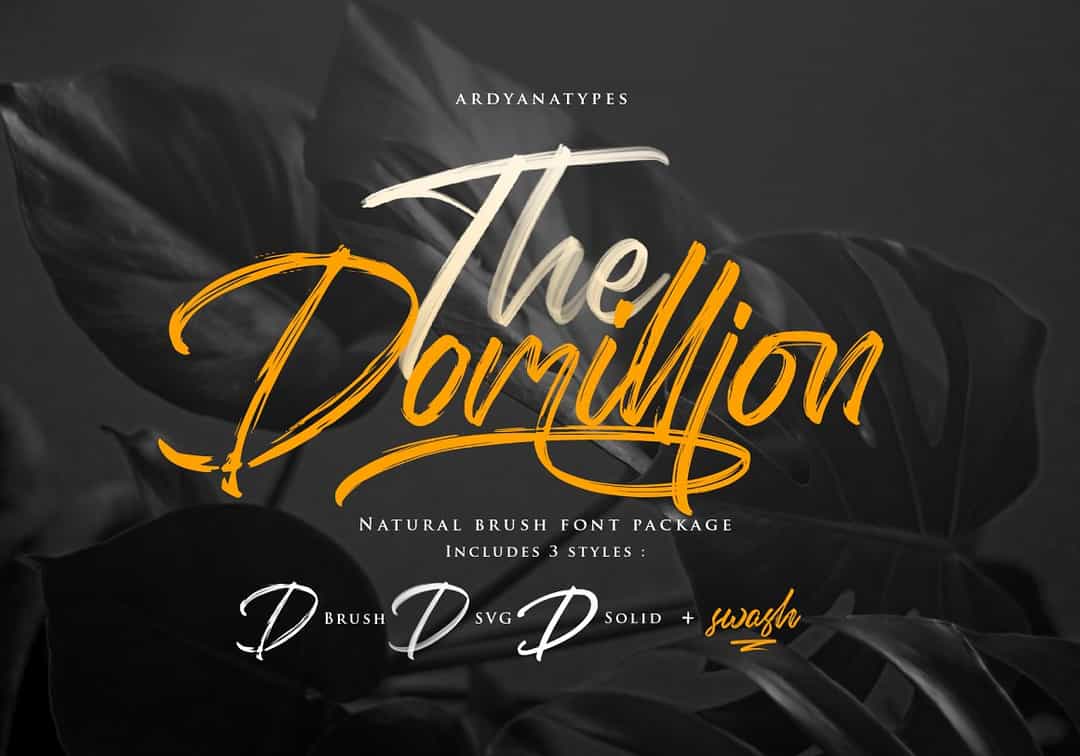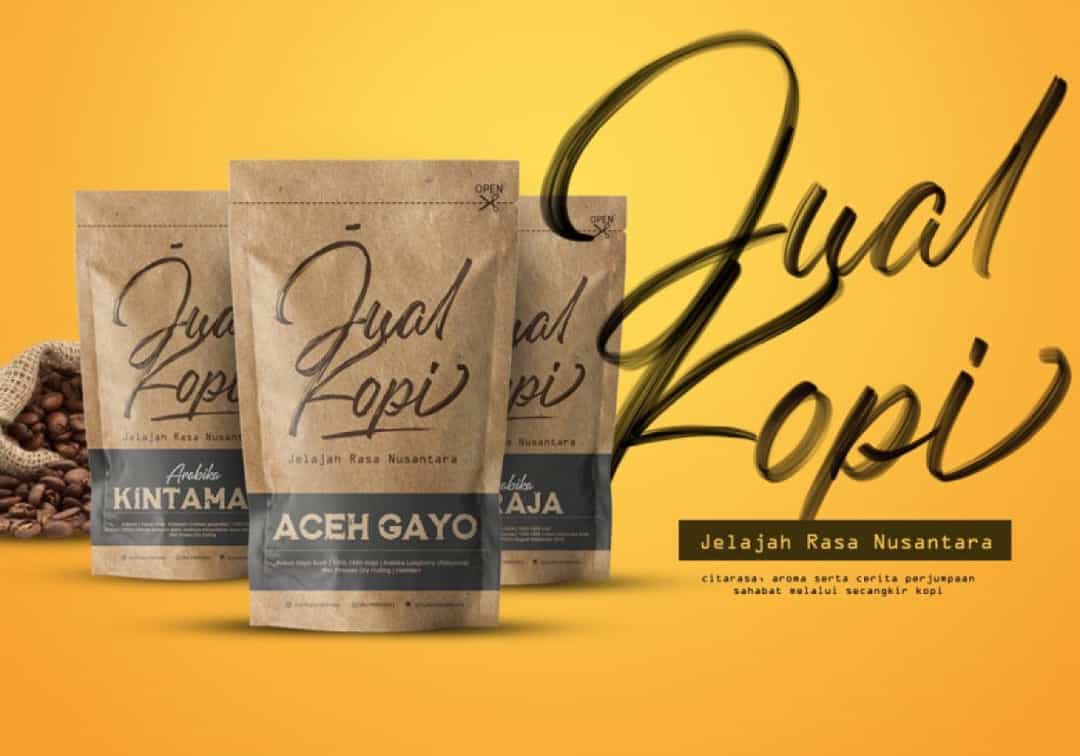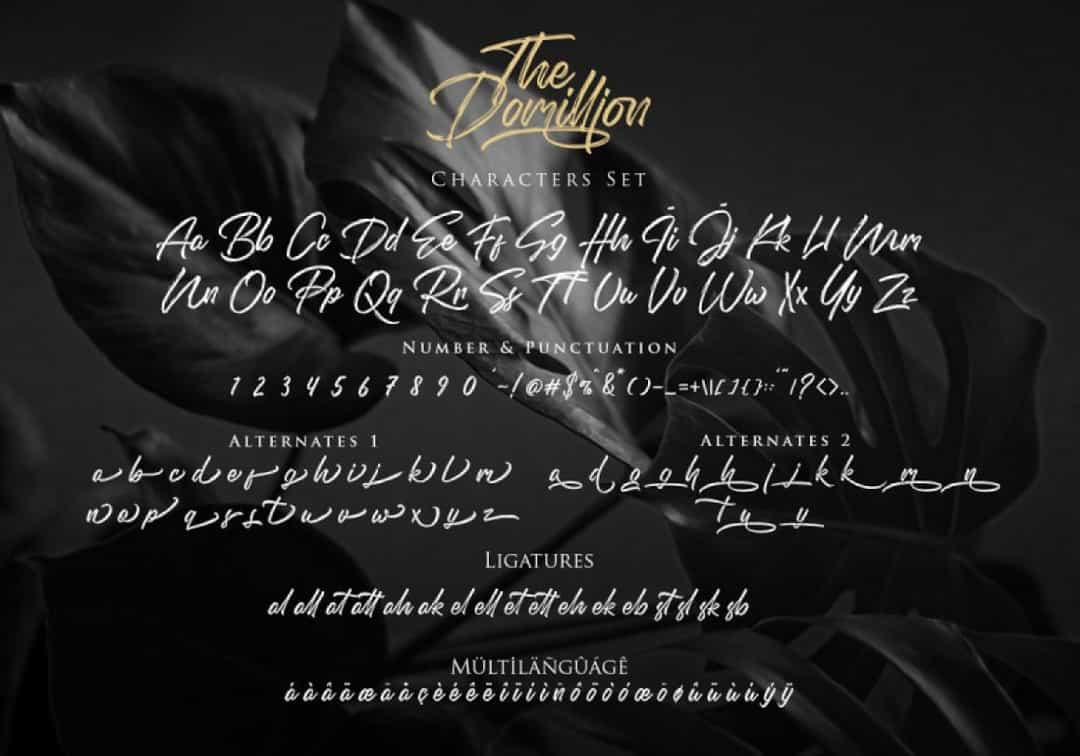
Domillion Brush Font was handcrafted using natural hand scratch marks that make for beautiful additions to designs. Available in three variations (SVG, submitted brush and Clean), each version of Domillion has its own distinct appeal.